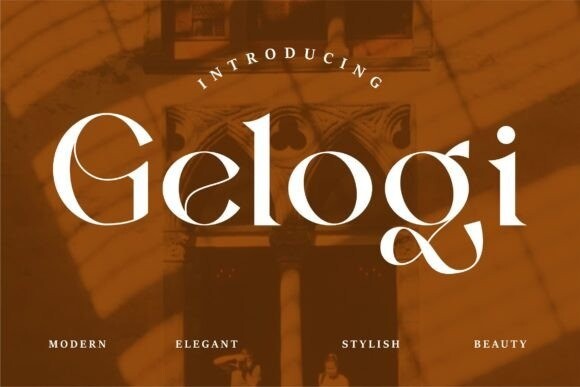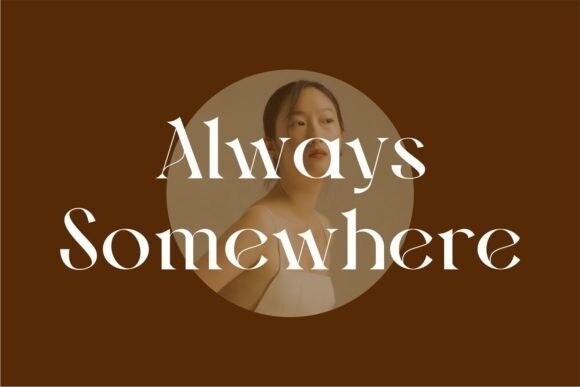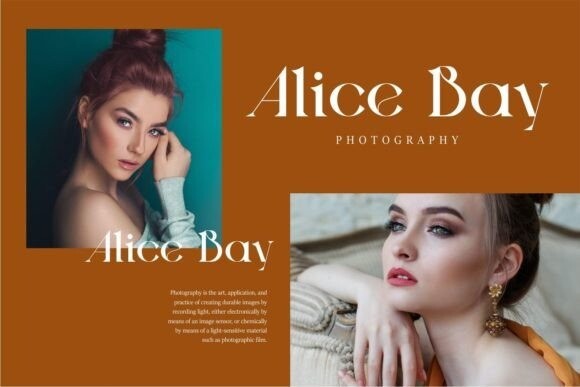
Gelogi Font
Gelogi is a modern slab serif font with an elegant style. It will look so beautiful on invitations like greeting cards, branding materials, business cards, quotes, posters, and more!